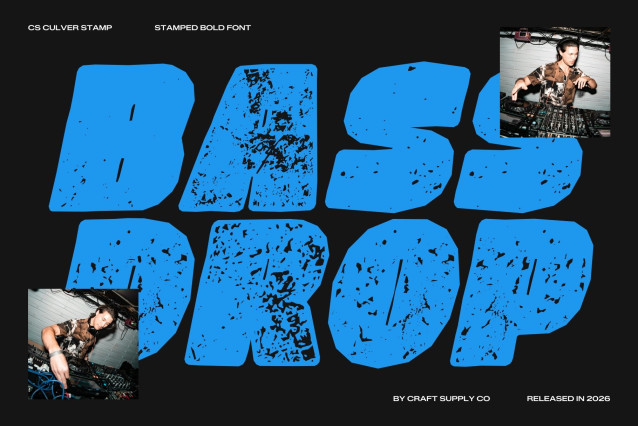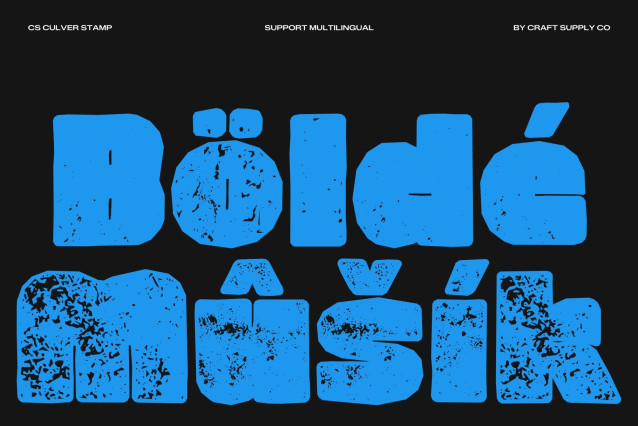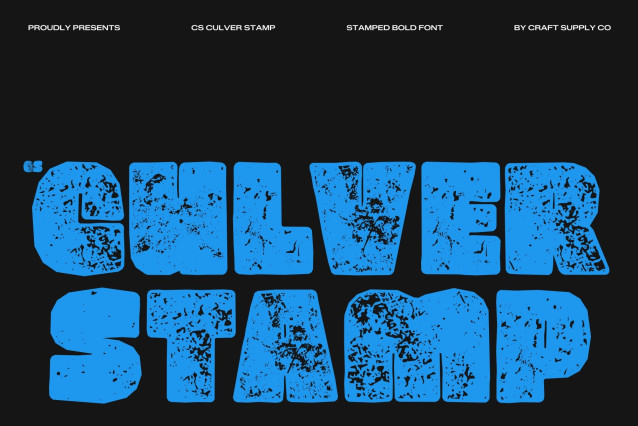
CS Culver Stamp Font
CS Culver Stamp – Bold Sans Serif with Retro Funky Style
Bold, Playful, and Full of Character
This is a bold sans serif font that blends a confident, clean structure with a retro funky twist. The added stamp texture introduces a subtle vintage, worn effect that enhances its personality, giving the font a handcrafted and nostalgic charm while keeping its strong modern presence.
Funky Retro Vibes with Modern Clarity
Inspired by 70s funk and nostalgic pop culture, the font merges old-school charm with contemporary geometric clarity. The stamped texture reinforces the retro aesthetic, creating a perfect balance between vintage warmth and modern readability.
Designed for Loud and Lively Visuals
This font shines in music posters, event promotions, product packaging, and expressive branding. Its bold shapes, playful energy, and textured finish make it ideal for designs that need to feel vibrant, energetic, and eye-catching.